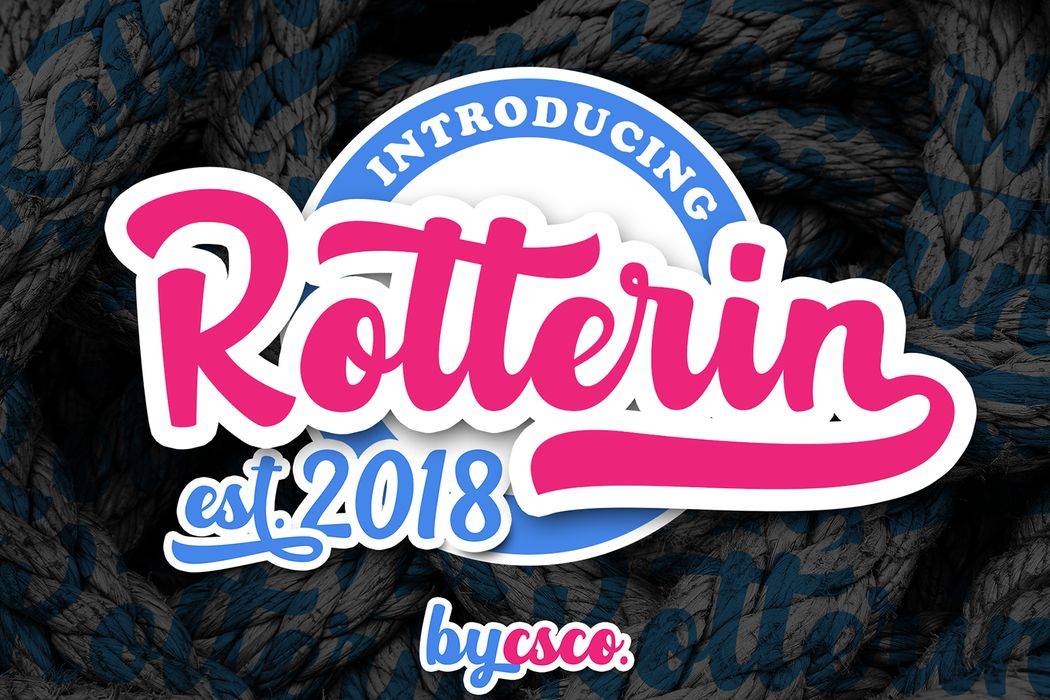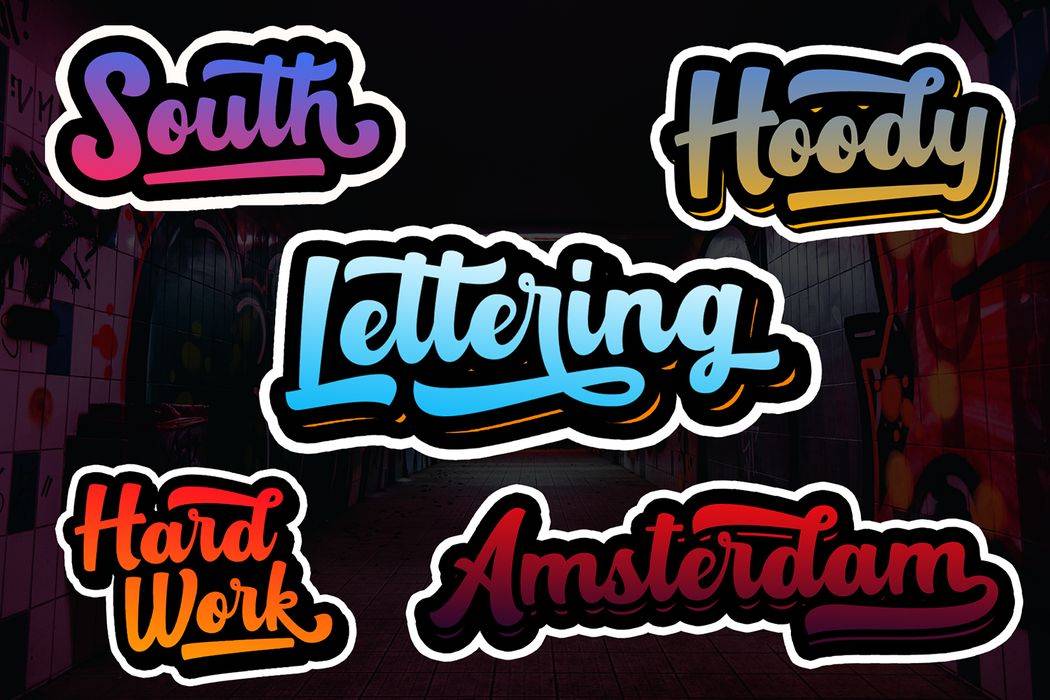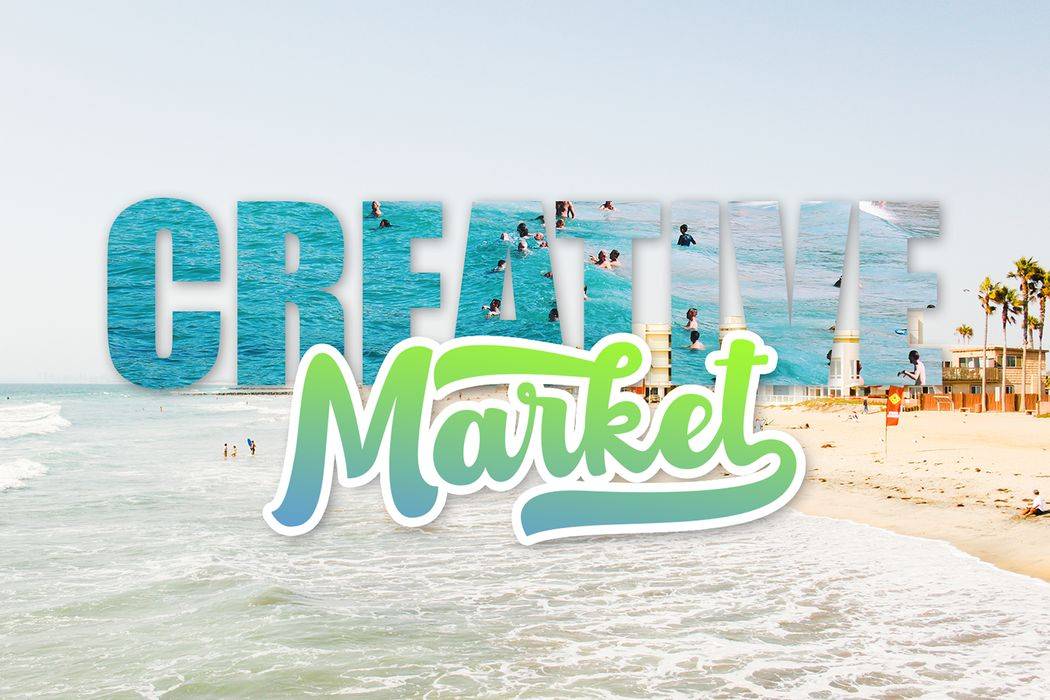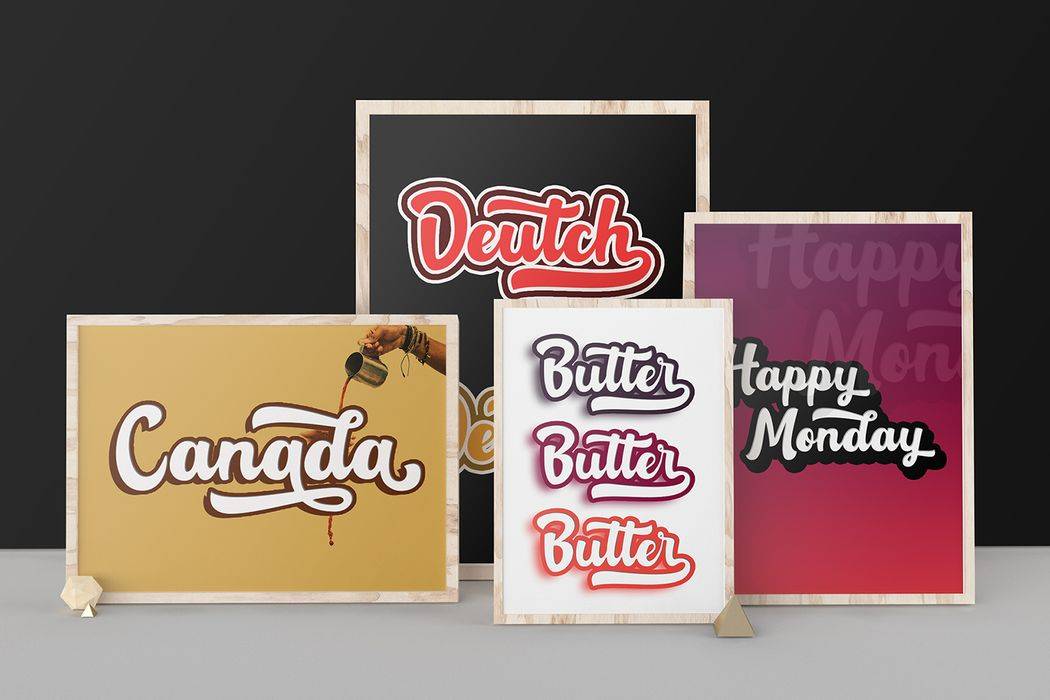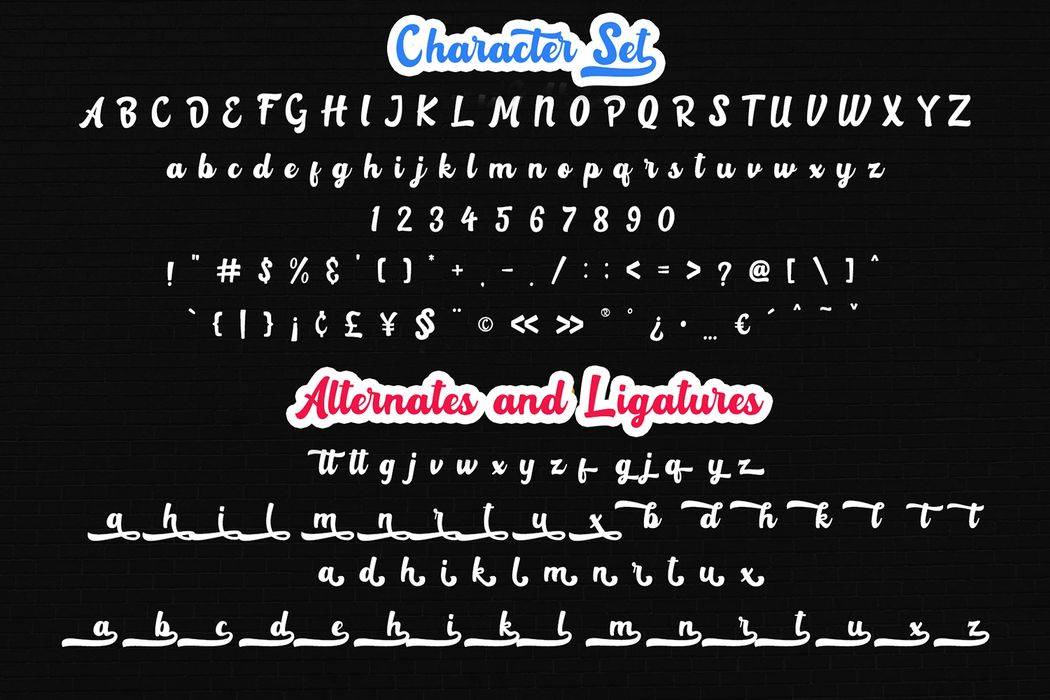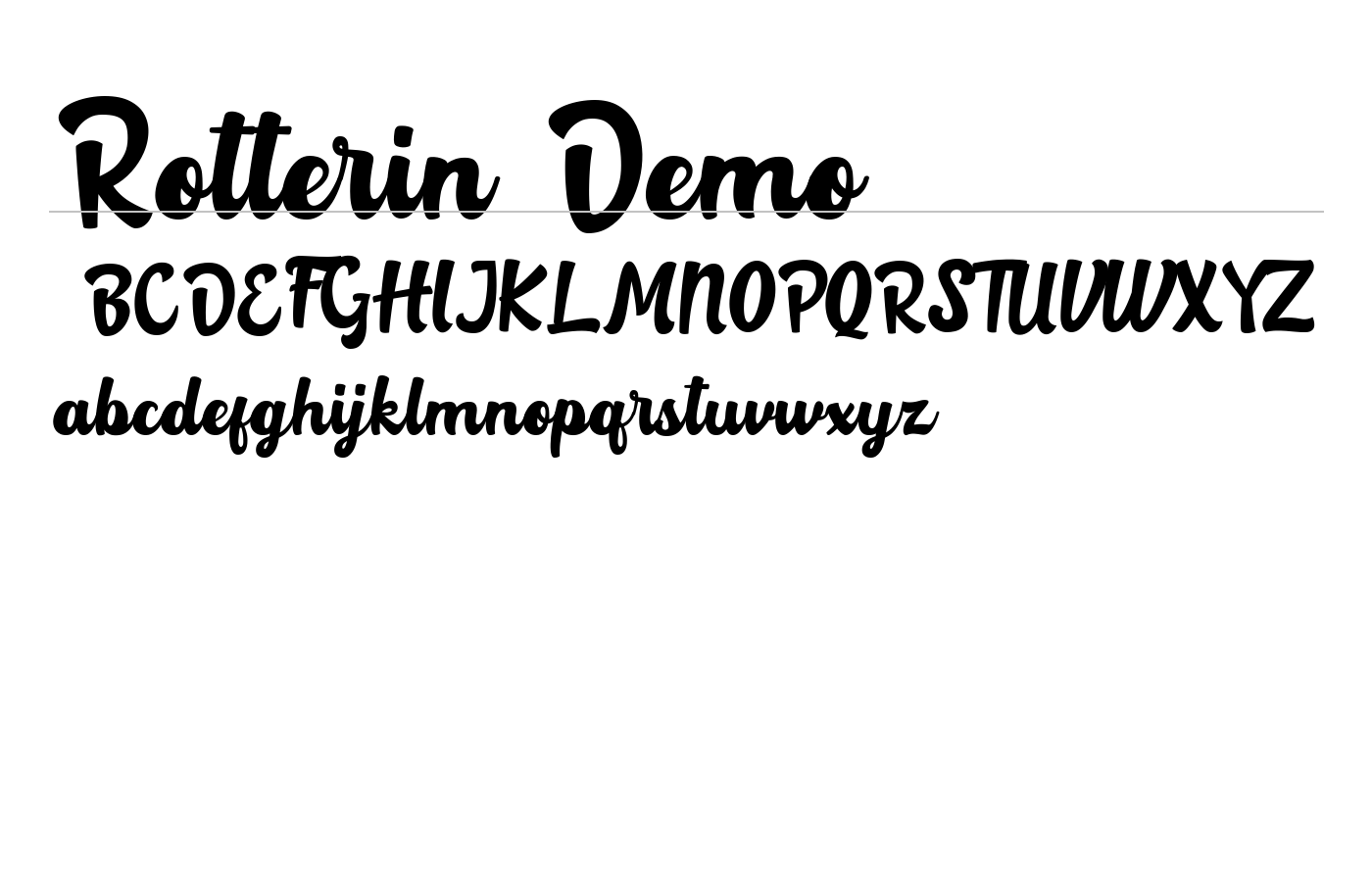
Rotterin Script is a bold, playful script font with a casual yet polished feel, featuring smooth, rounded strokes and moderate contrast. Its lively, hand-lettered style with distinctive uppercase letters and flowing lowercase forms makes it ideal for branding, invitations, and headlines where a friendly, approachable vibe is desired. This font works well in projects seeking a warm, engaging look without sacrificing readability.
Rotterin Script Font
About Rotterin Script Font
| Font family | Rotterin Script Font |